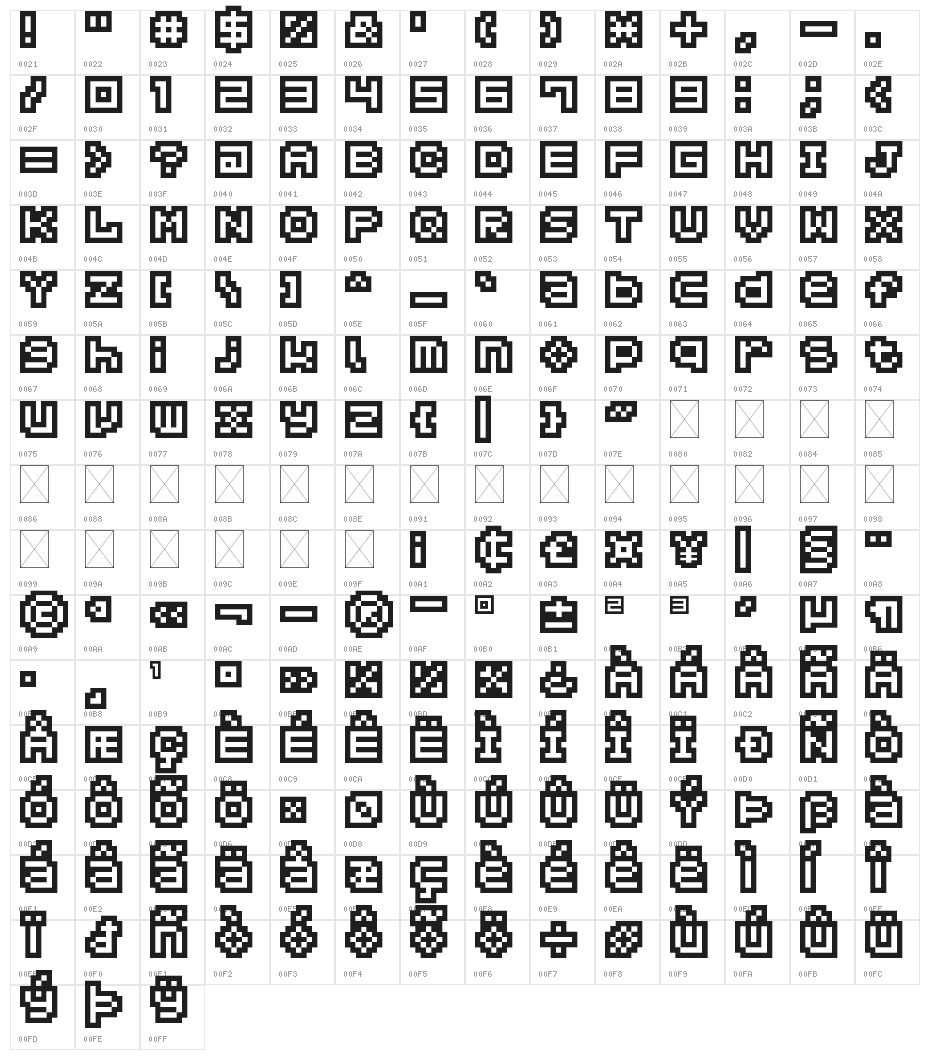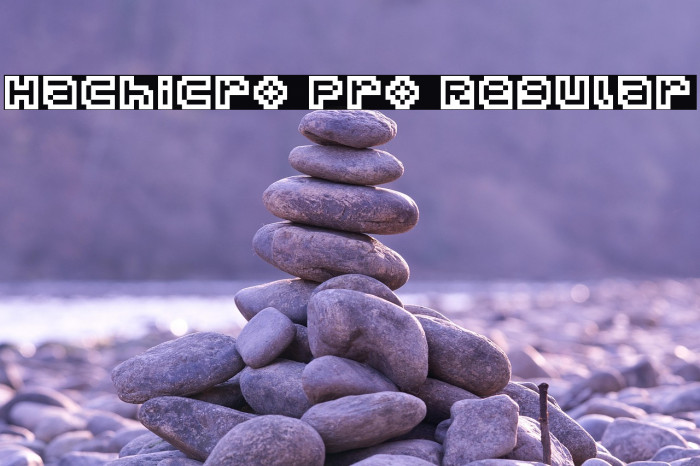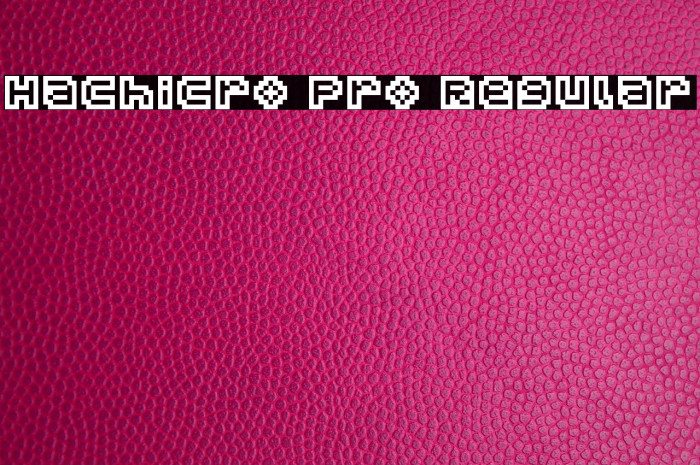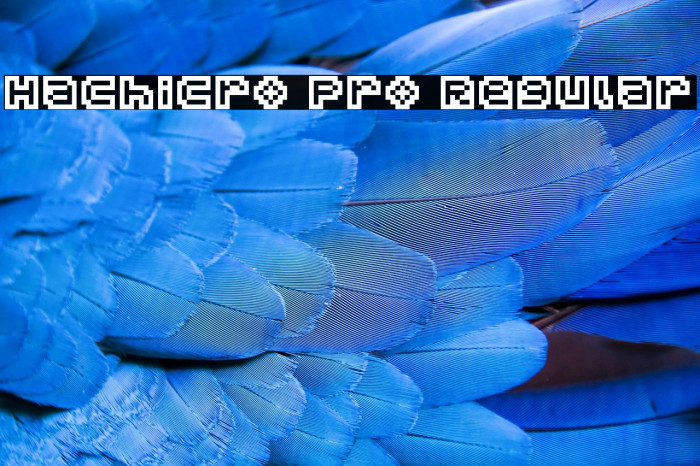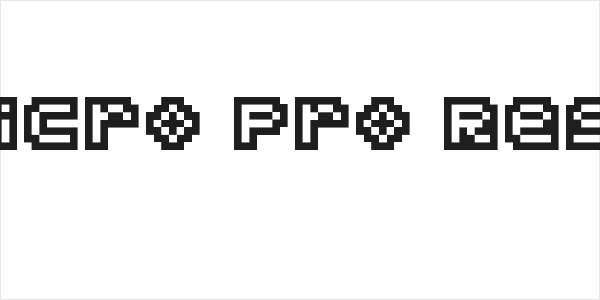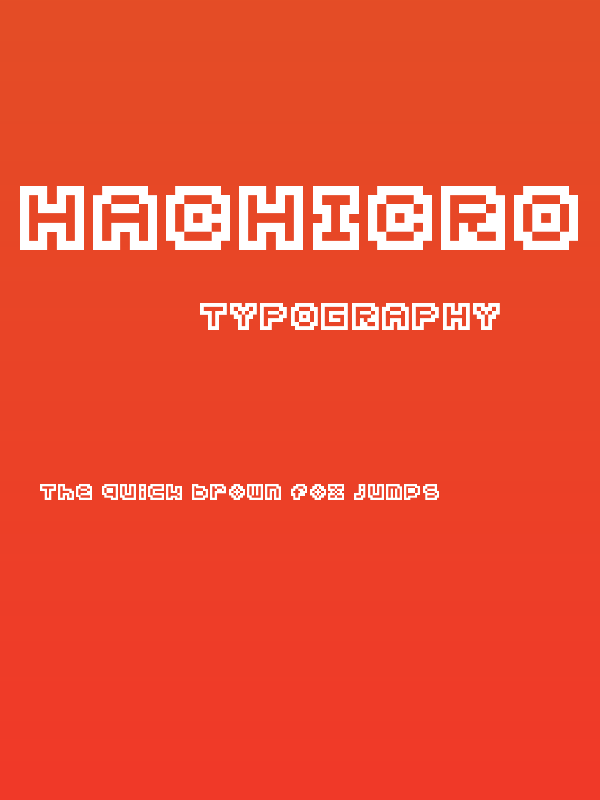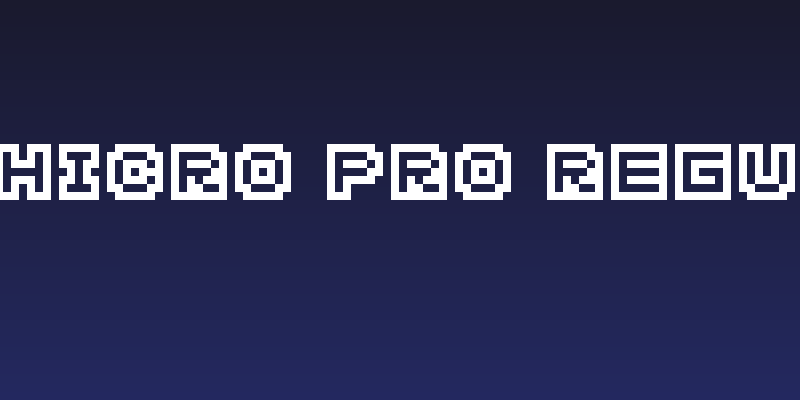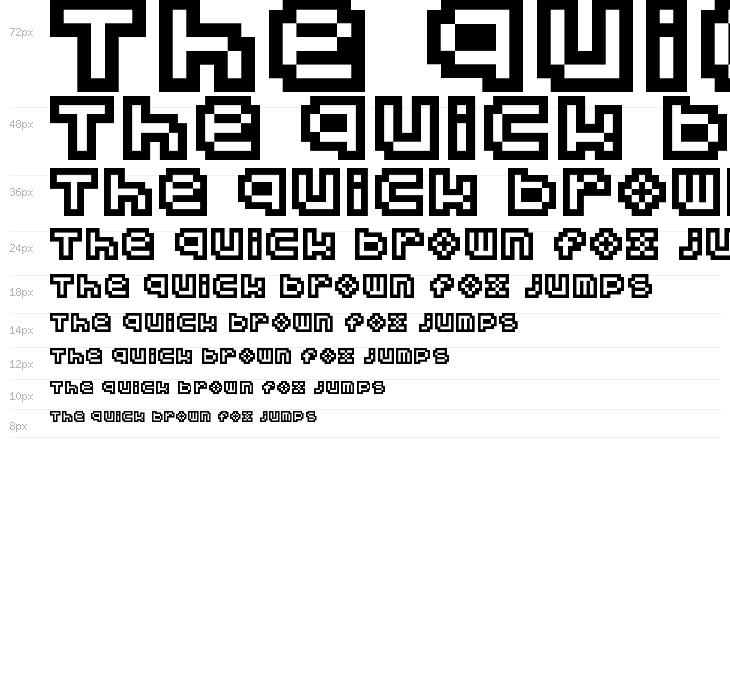
Hachicro Pro Regular Font
Hachicro Pro Regular Description
This font features a bold, pixelated design reminiscent of classic video game graphics. Each character is constructed with a blocky, grid-like structure, giving it a distinctly retro and digital feel. The uppercase and lowercase letters maintain a consistent height, enhancing readability while preserving the font's unique style. Numbers and special characters follow the same pixelated pattern, ensuring uniformity across all elements. The font's geometric precision and nostalgic aesthetic make it ideal for projects that require a vintage or tech-inspired look.
Overall StyleVintage
Proposed ProjectsIdeal for video game designs, retro-themed posters, digital art, and tech-related branding.